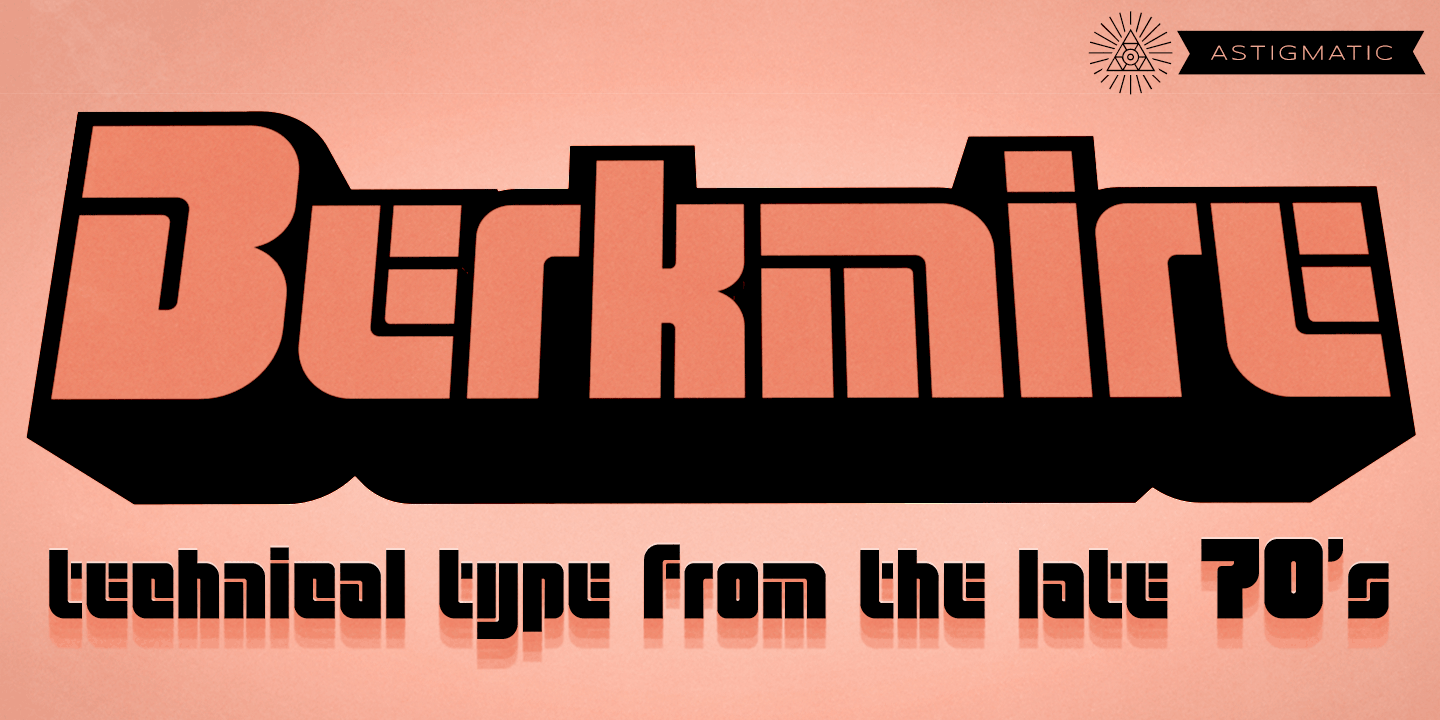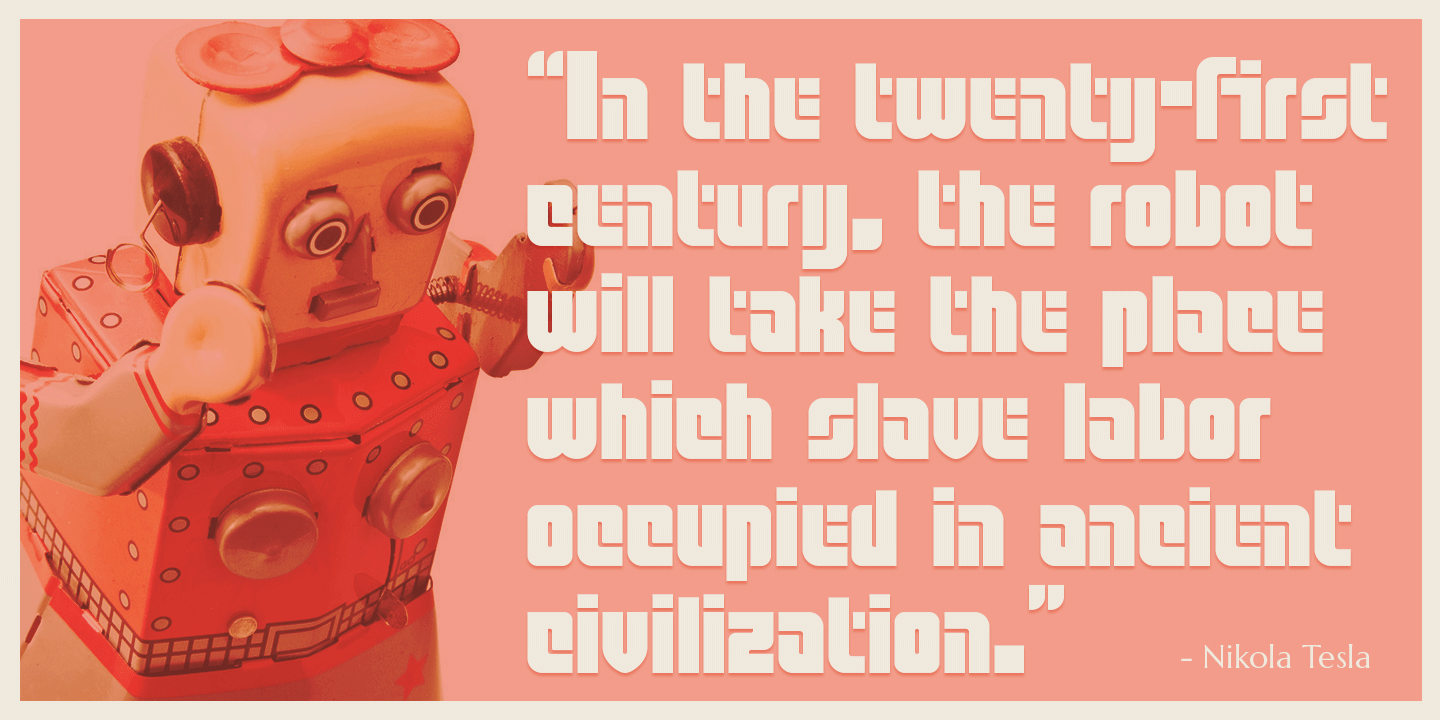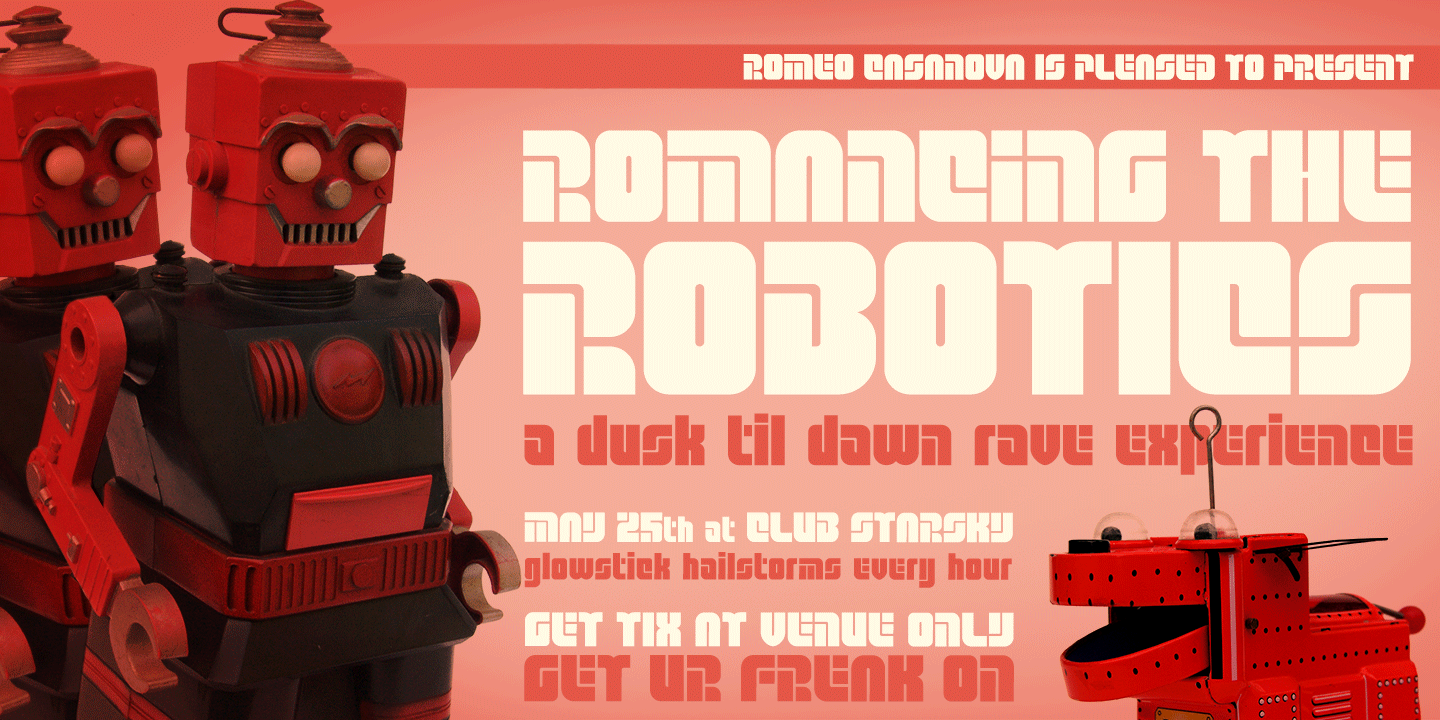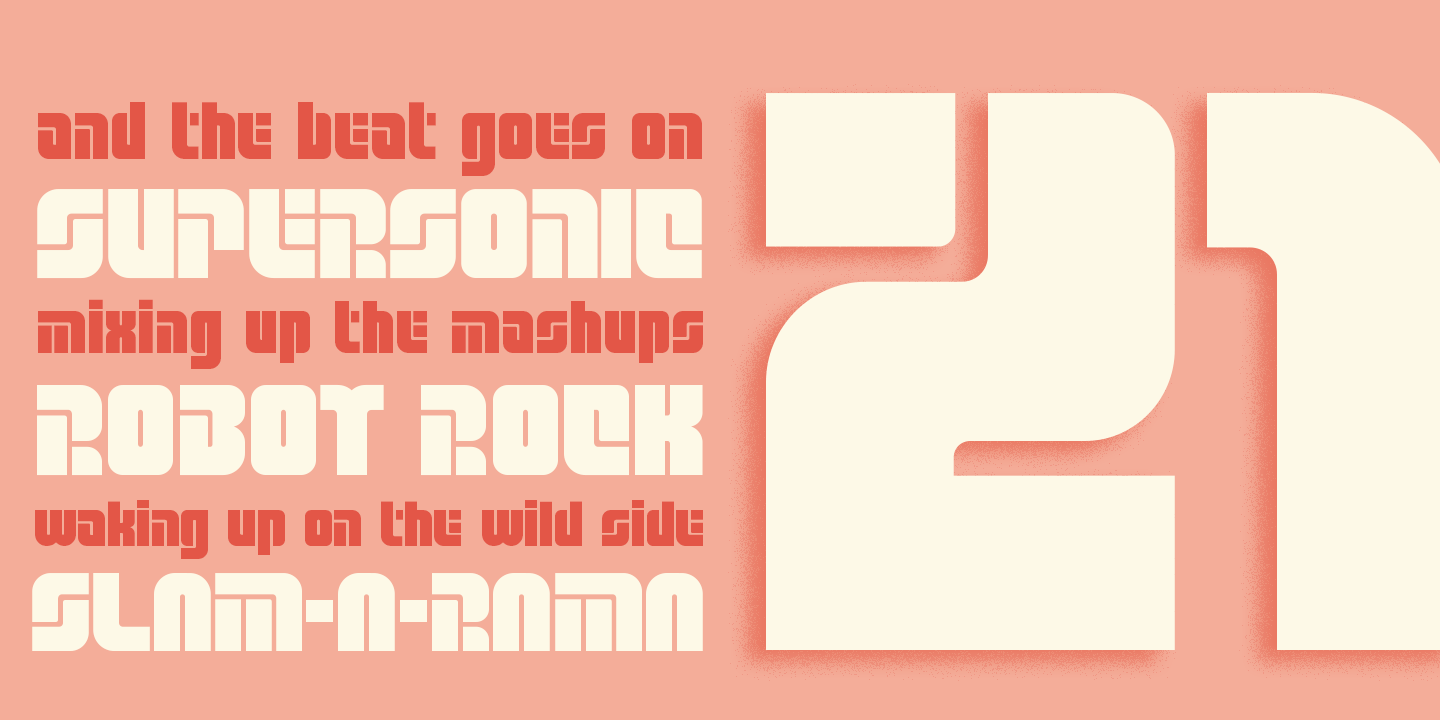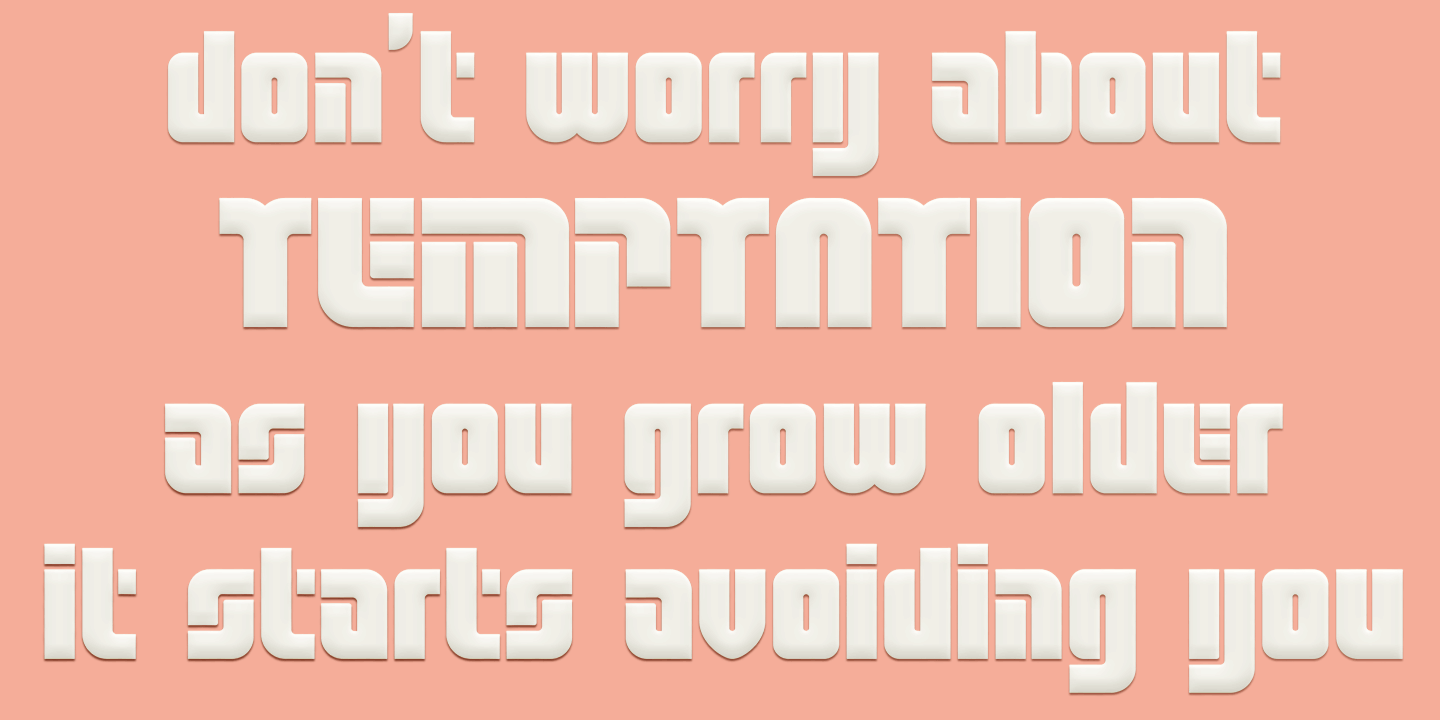
Berkmire AOE
Font Family by Astigmatic One Eye
1970's Techno-typography finds its rebirth in Berkmire AOE.
From its beefy weight to its narrow and sometimes unusual counter cuts, Berkmire AOE started as a digitization of a film typeface called Belden by LetterGraphics. This bulky techno typeface was taken from its limited character set and fleshed out to include an expanded language glyph set. The Capital letterforms seem to push the edge of readability, while the lowercase falls more in line.
The letterforms of Berkmire AOE are easy to convert to paths and extend various stems, making this revival something you can really let your imagination run wild with for your designs.